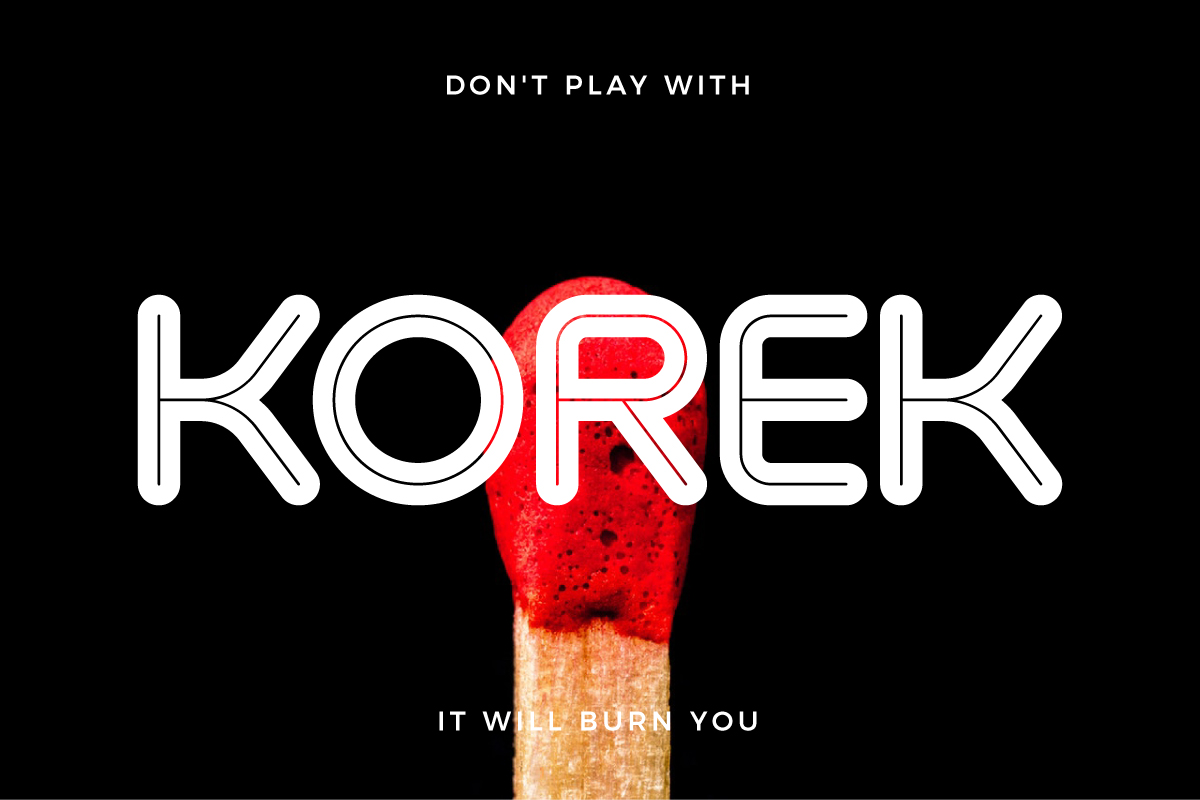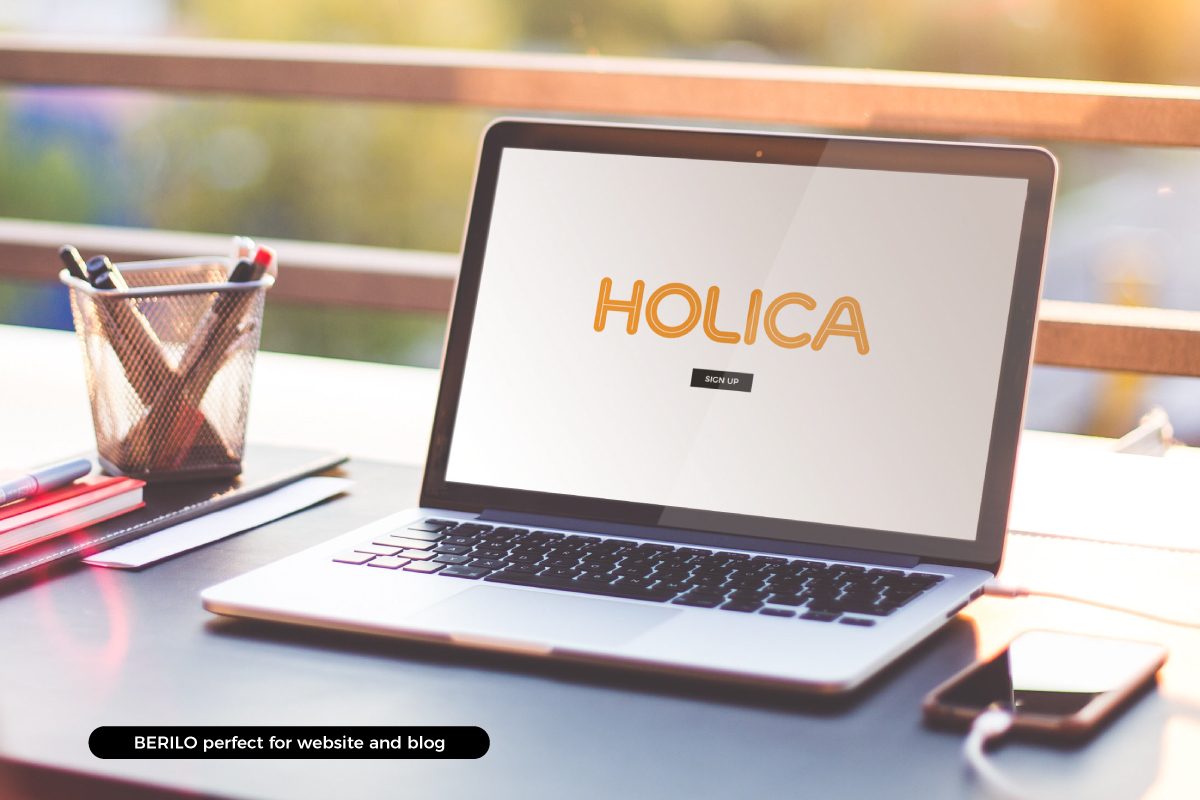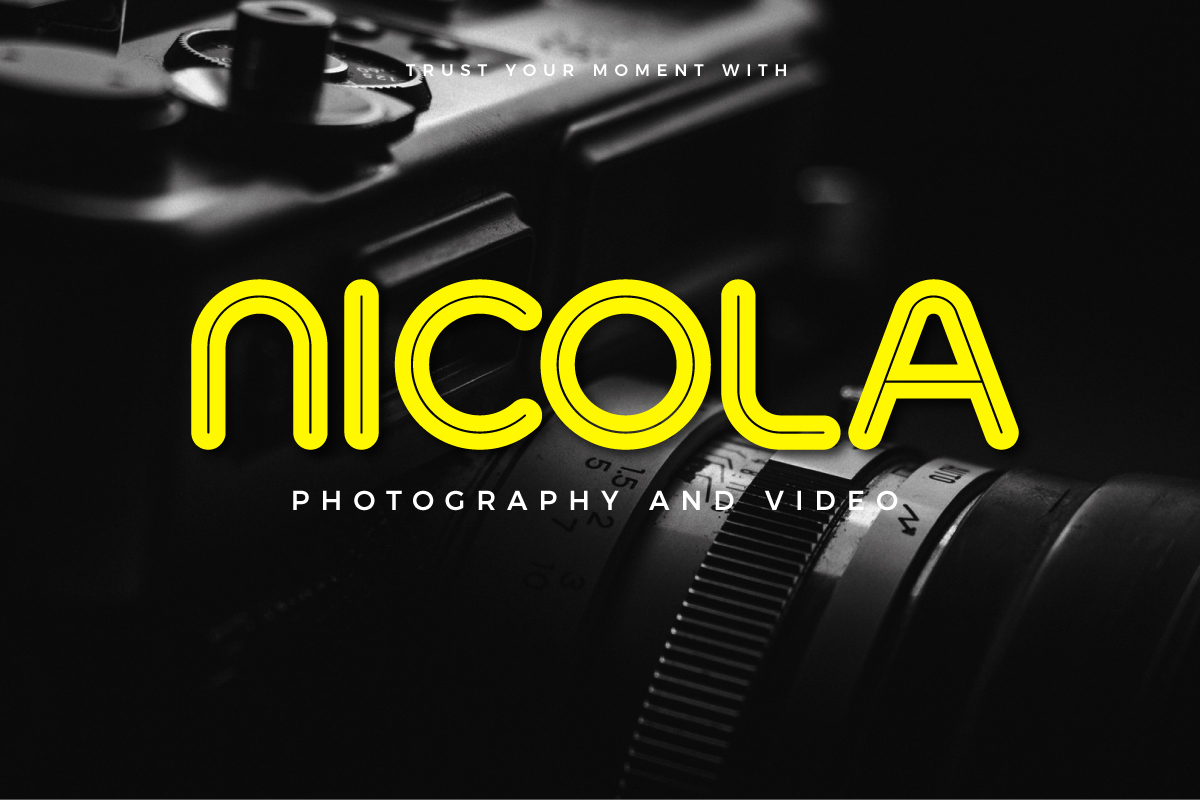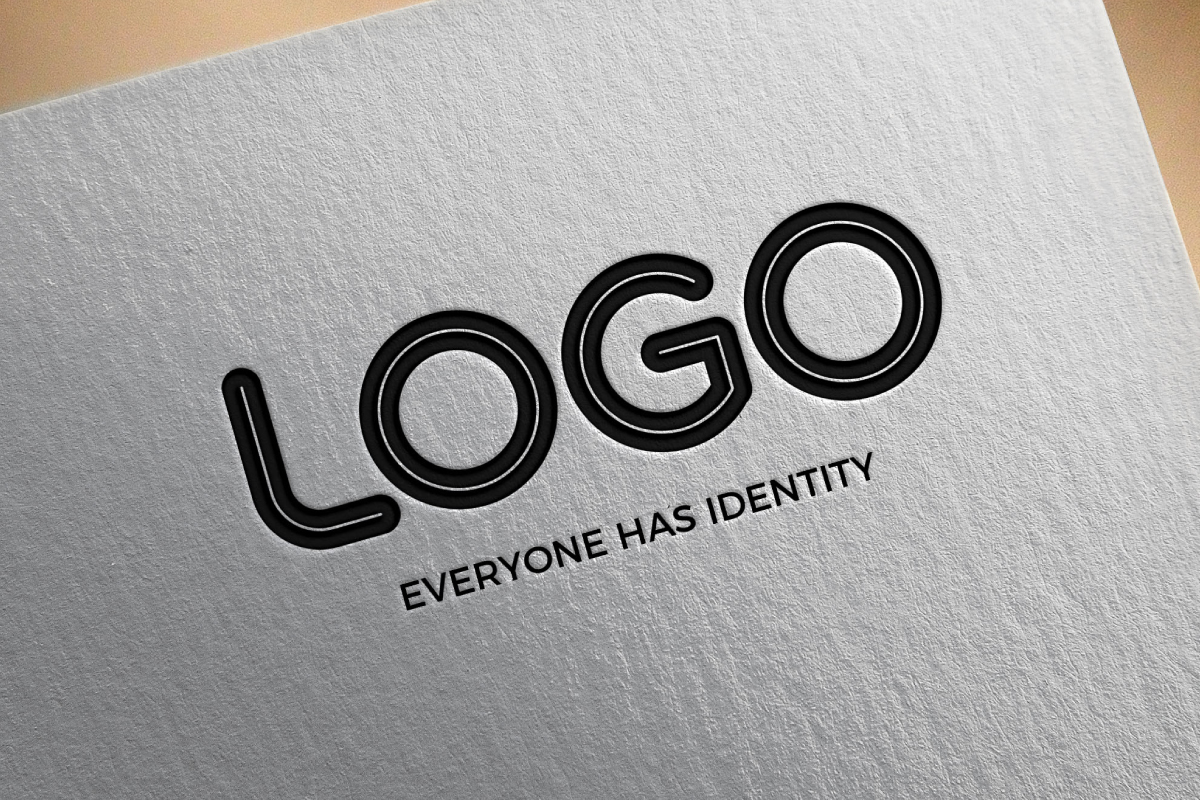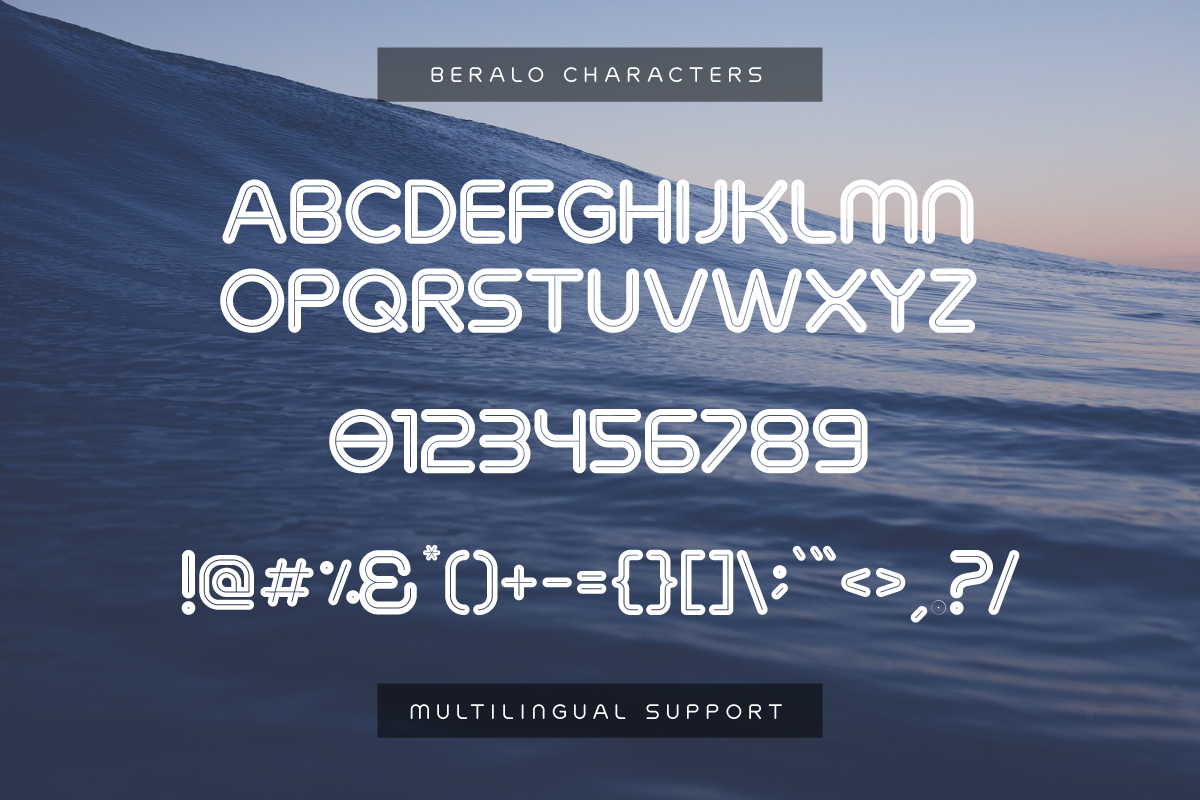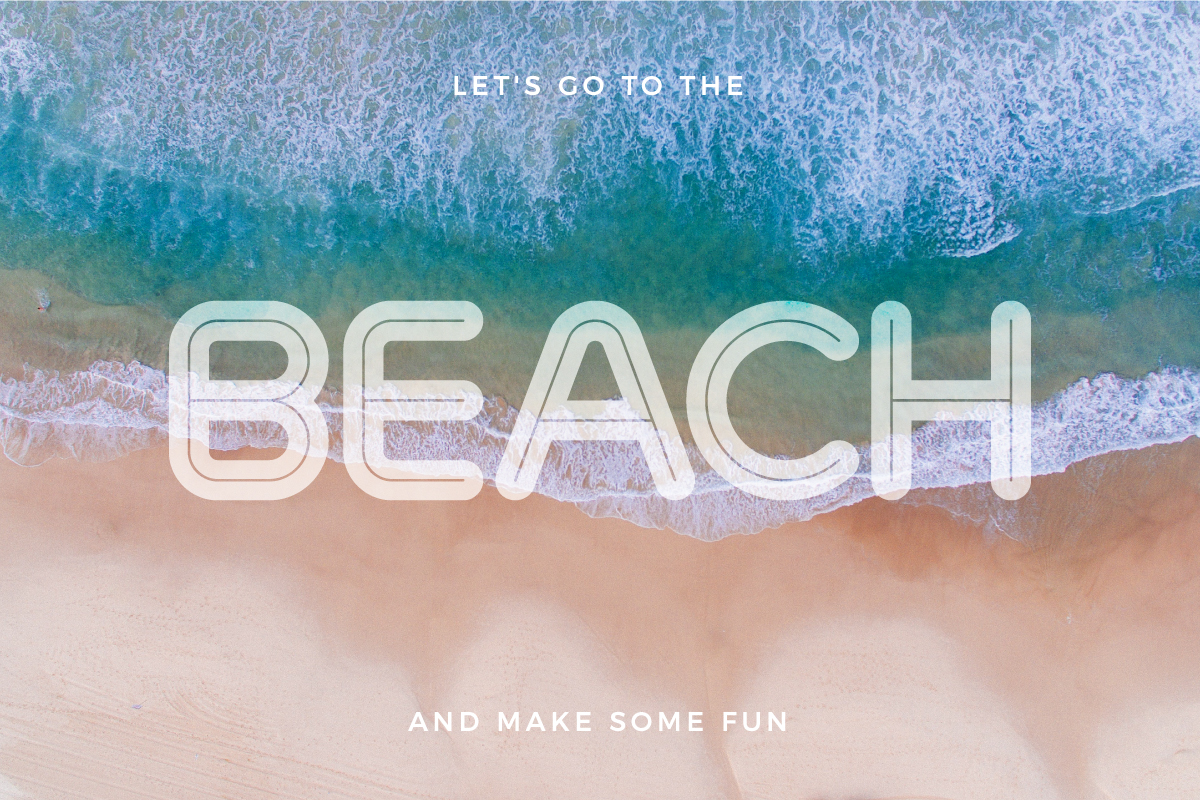
The Perfect Font for a Bold Statement
As a designer, have you ever stared at a blank page, waiting for inspiration to strike? You’ve got a vision in your mind, but it’s just not translating onto the page. That’s when you remember: the right font can make all the difference. It’s the key to unlocking the perfect balance of style and substance. For your next project, consider using the Beralo Inline Font.
This modern rounded all caps font is designed to make a statement. With its simple yet strong aesthetic, the Beralo Inline Font is ideal for headlines and modern themes. Its firm and straightforward design ensures that your message is conveyed clearly and effectively. Whether you’re working on a branding project or creating a website, the Beralo Inline Font is a valuable addition to your design toolkit.
Beralo Inline Font Key Features
- Font Family: Beralo Inline Font is a unique font family that offers a distinctive inline style, perfect for adding a touch of elegance to your designs.
- Unique Characteristics: Beralo Inline Font features a distinctive inline style, with characters that appear to be written on top of each other, adding a touch of sophistication to your designs.
Beralo Inline Font Review
As a designer, I’ve had the chance to work with various fonts, and I must say, the Beralo Inline Font is a unique and interesting choice. ✨
- ✨ Unique and creative design that sets it apart from other fonts.
- ✨ Works well for titles and headings, adding a touch of elegance to any design.
- ✨ The inline design makes it perfect for use in social media posts, articles, and other online content.
- ⚠️ May be difficult to read in certain contexts, such as in small font sizes or at a distance.
- ⚠️ Limited character set and support, which may limit its use in certain languages or applications.
- ⚠️ Can be overwhelming or distracting if used excessively or in the wrong context.
Overall, I think the Beralo Inline Font is a great choice for designers who want to add a touch of creativity and elegance to their designs. However, it’s essential to use it judiciously and consider the potential limitations. With careful use, it can be a powerful tool in your design arsenal.
The Beralo Inline Font is ideal for creating visually appealing headlines, titles, and short paragraphs. It’s particularly useful for:
– Social media posts and ads
– Blog and article titles
– Infographics and presentations
Experiment with different font sizes, colors, and alignments to achieve the desired effect. Use the font in combination with other design elements to create a visually appealing composition. Pay attention to the spacing between lines to ensure the inline effect looks balanced and harmonious.